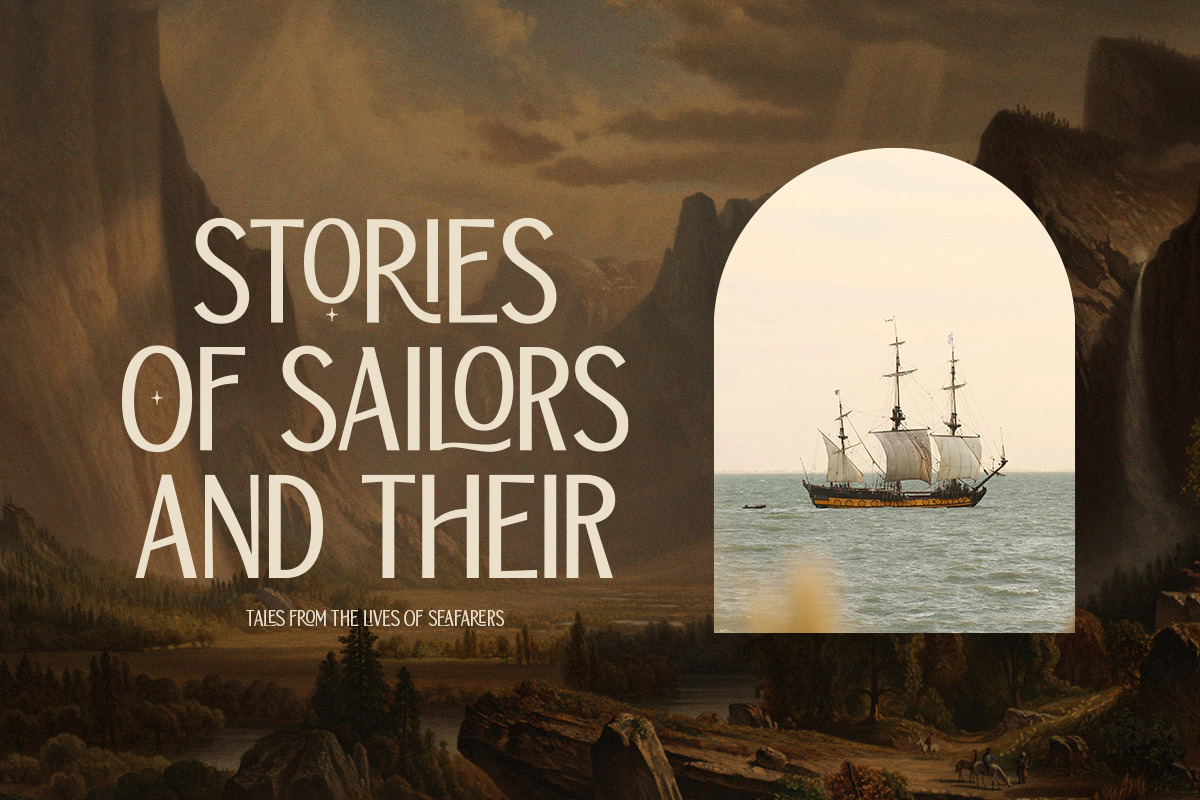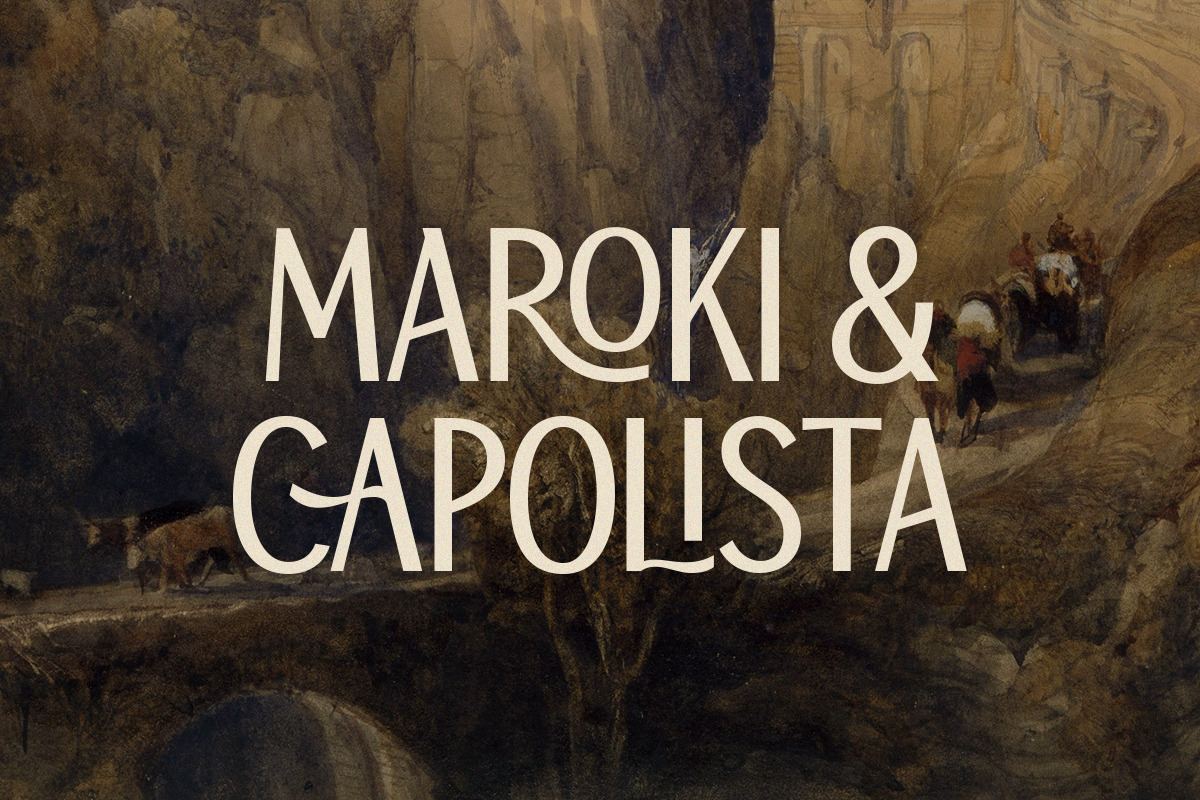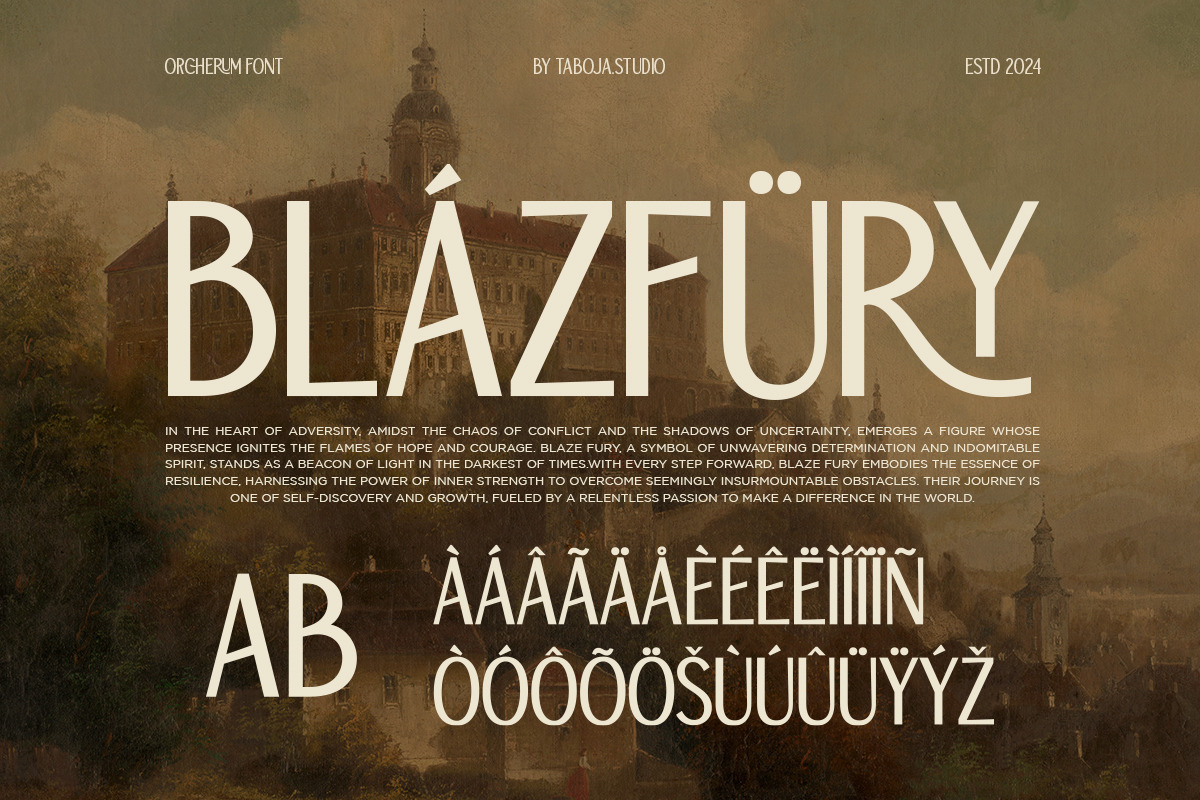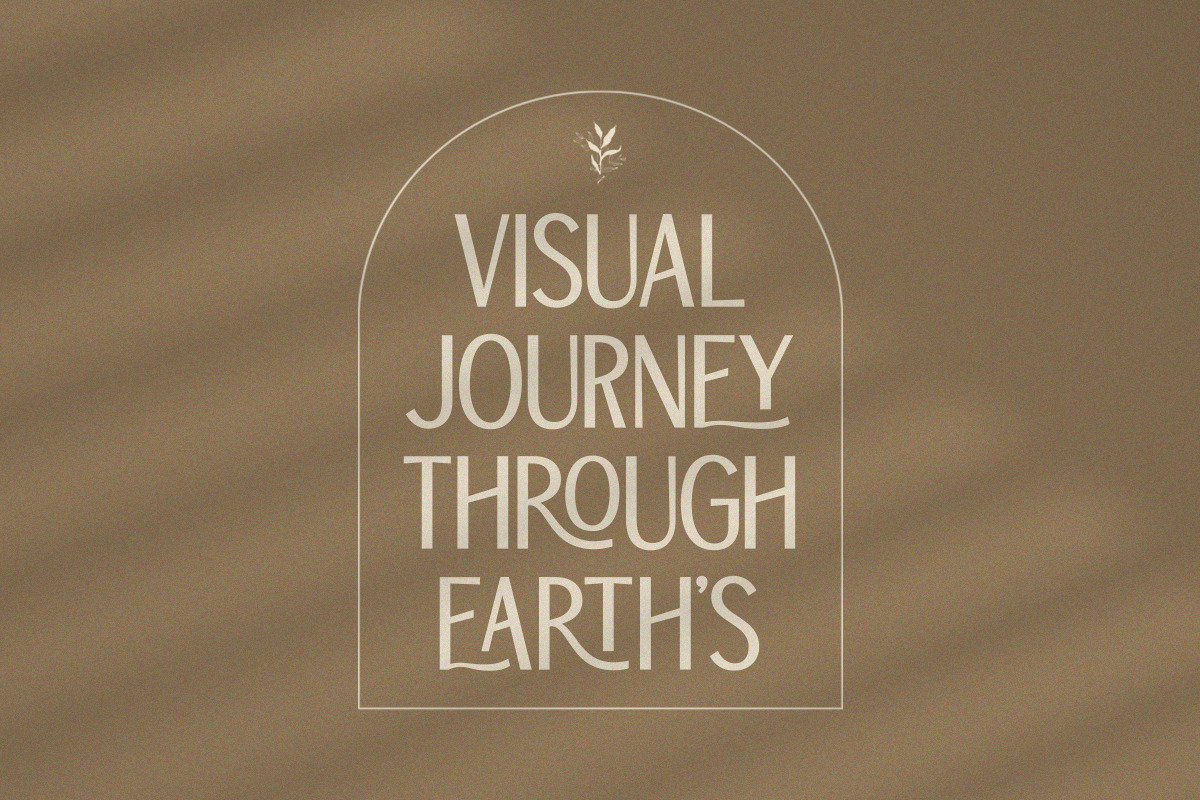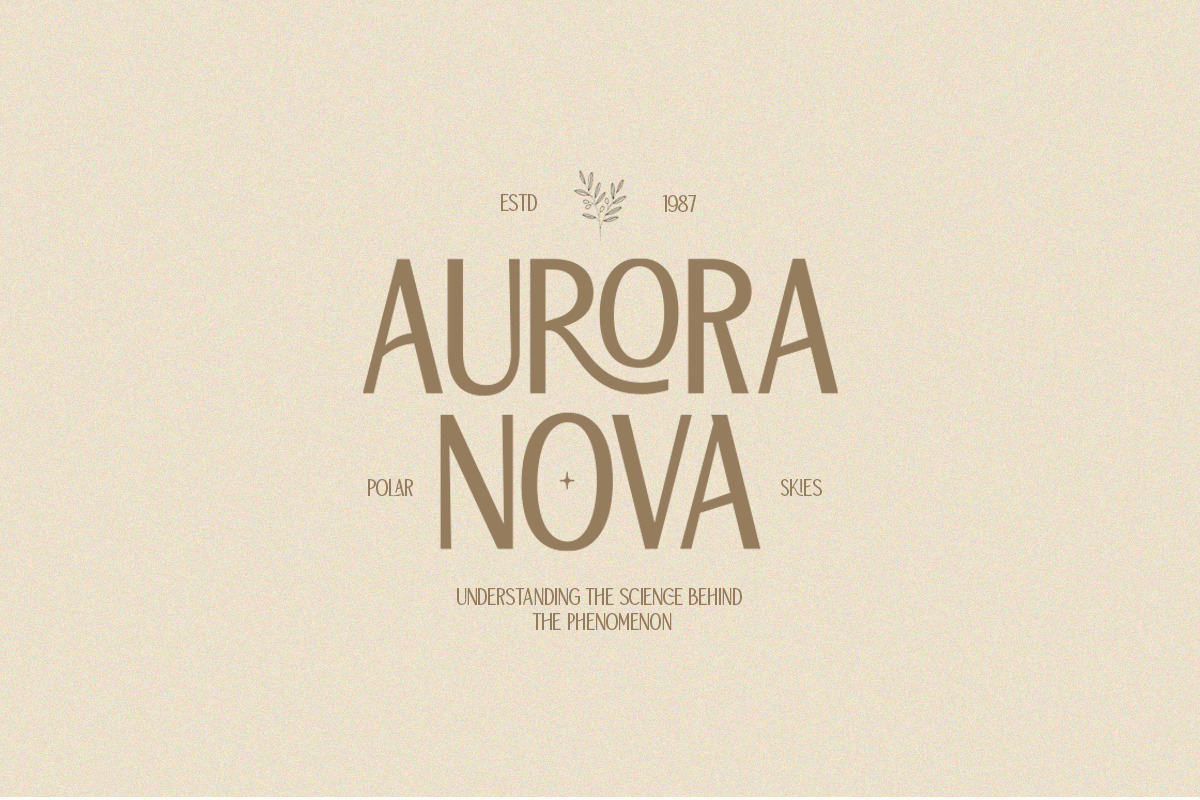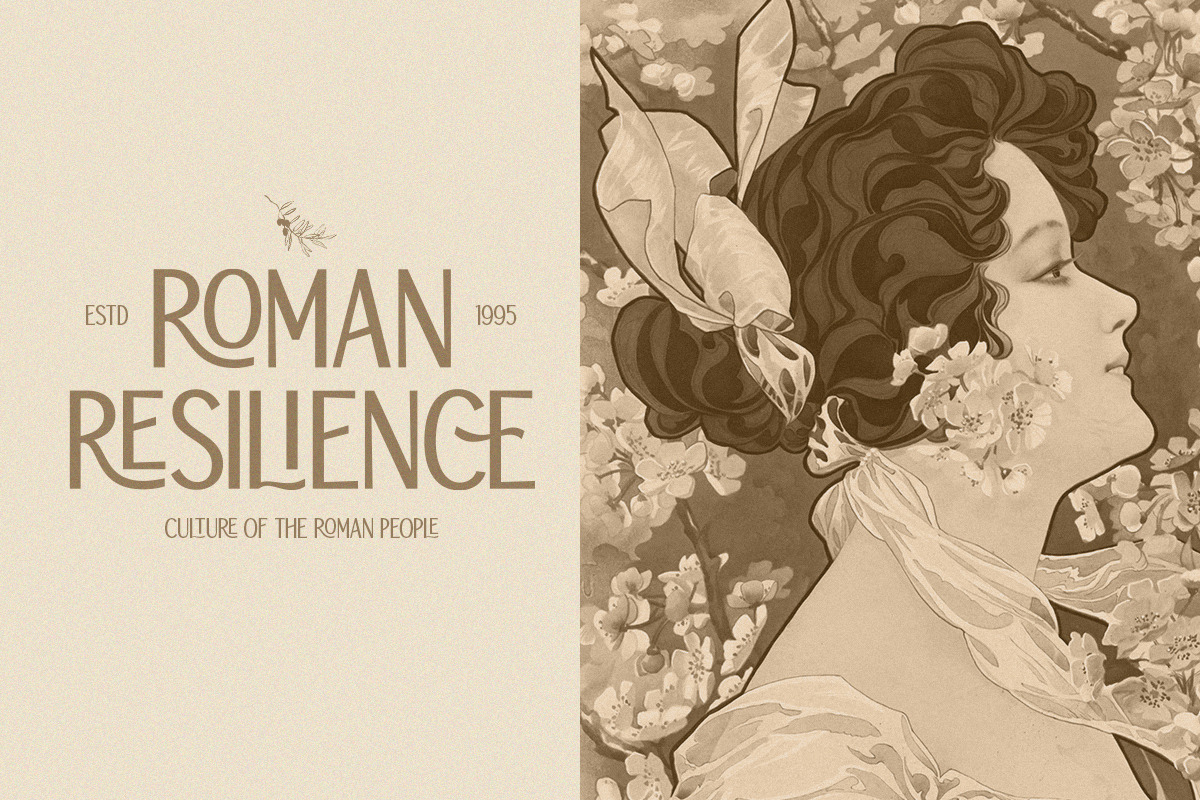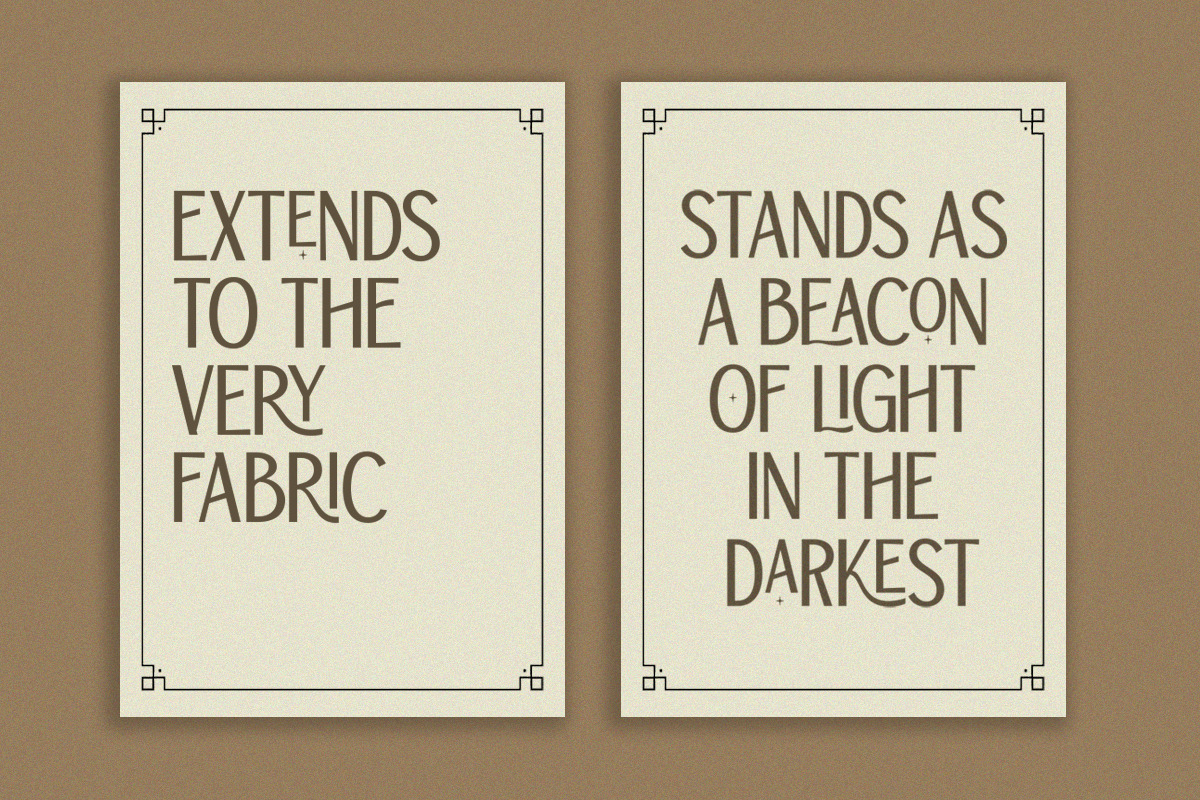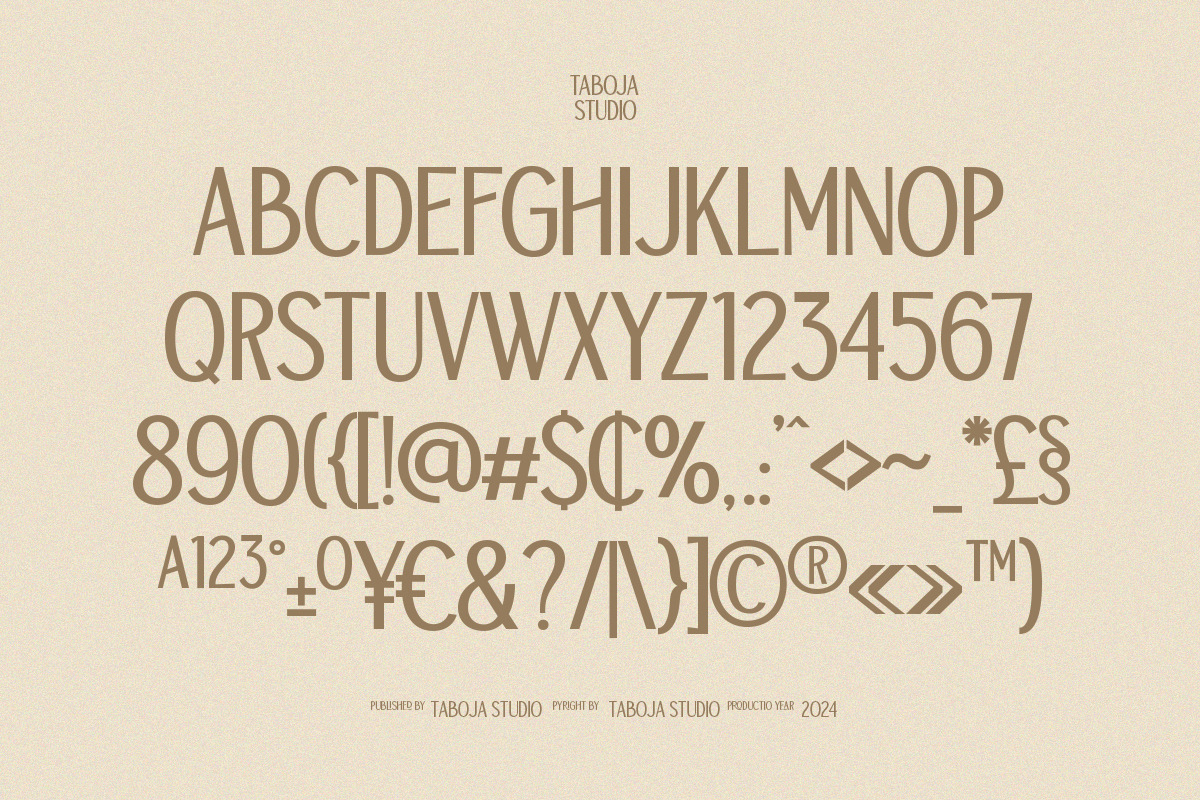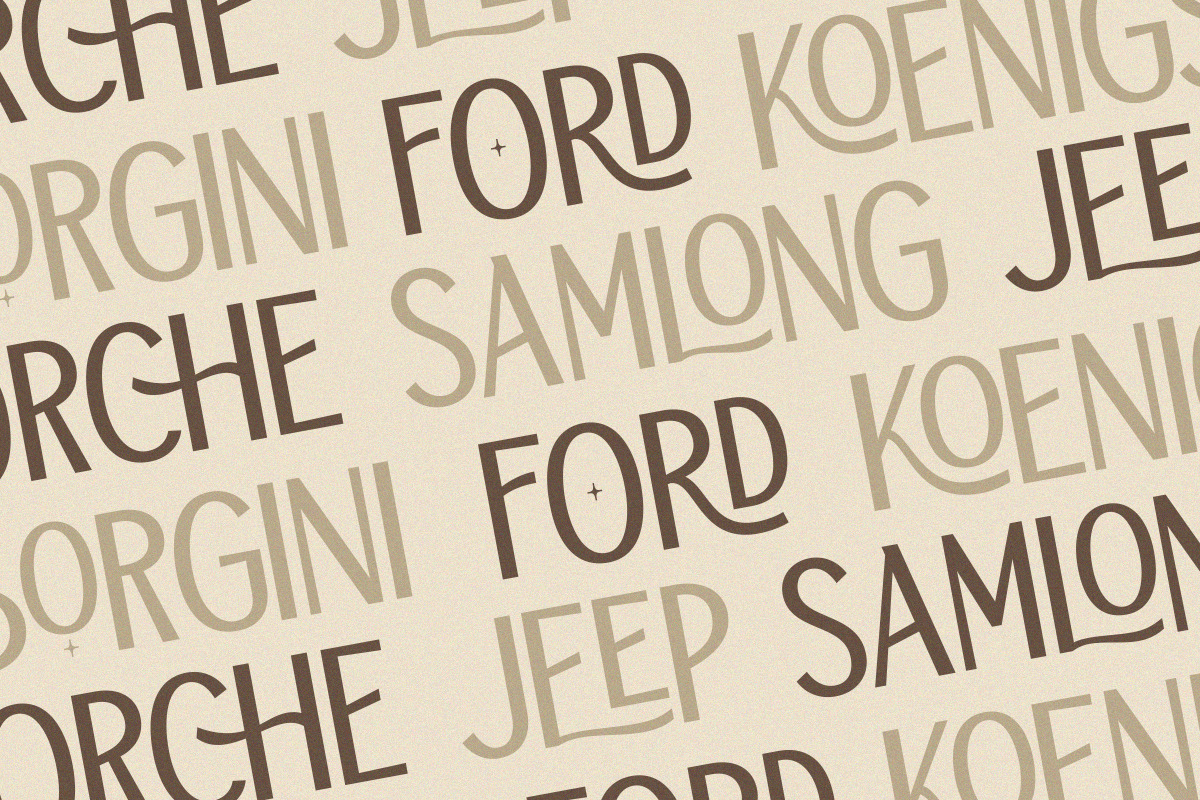
TBJ Orcherum | Unique Ligatures
Orcherum Unique Sans Serif, a font that exudes elegance and sophistication with its captivating design and exquisite ligatures. Perfect for enhancing your design elements, this font offers a modern yet timeless aesthetic, making it an ideal choice for a variety of design projects.
Crafted meticulously to ensure optimal quality in appearance and readability, each letter in Orcherum is a work of art in itself. Whether it's logos, titles, book covers, web design, or posters, this versatile font provides endless creative possibilities, allowing you to create captivating and professional-looking designs effortlessly. Elevate your projects with the distinctive charm of Orcherum Unique Sans Serif font.